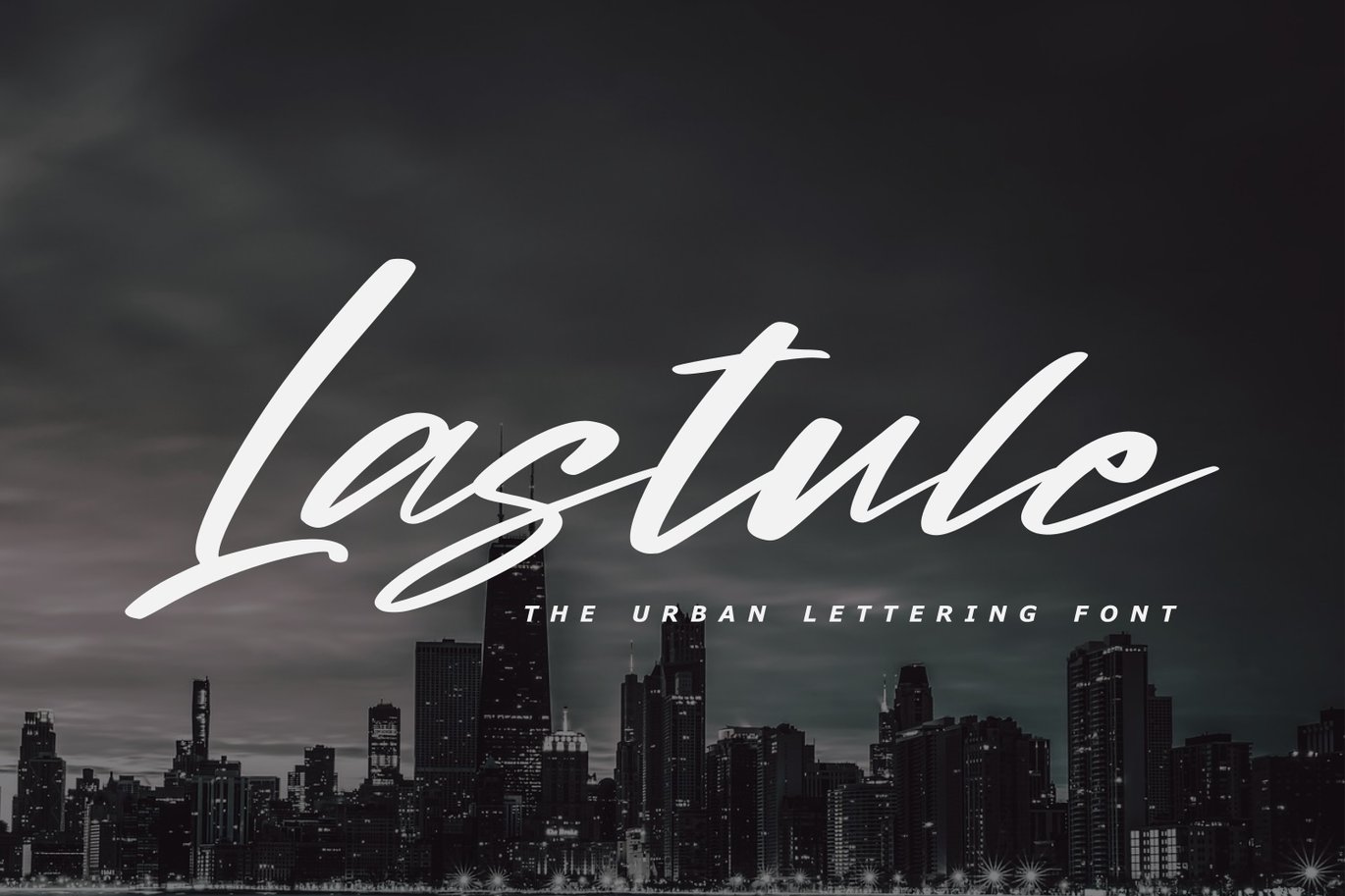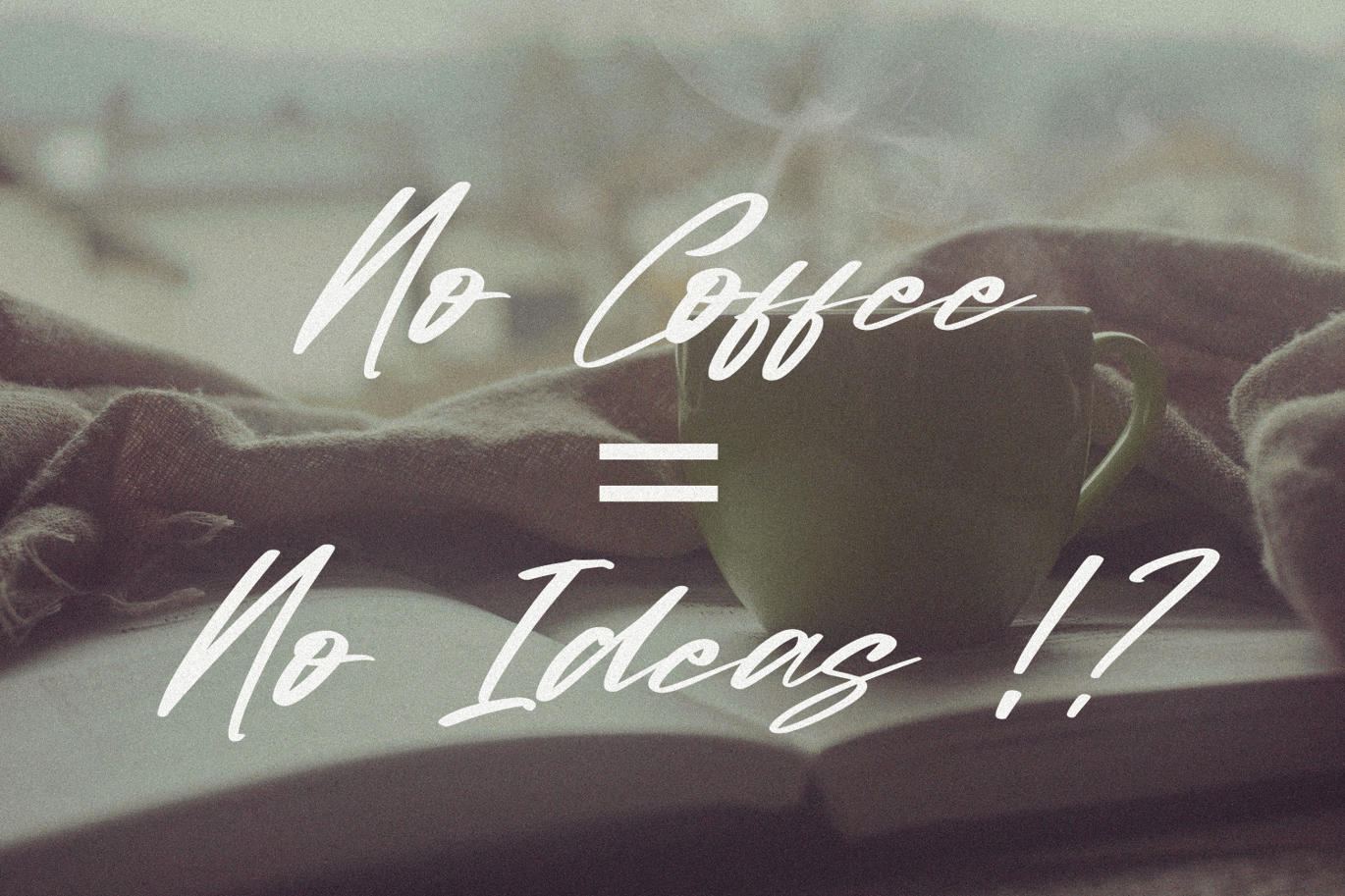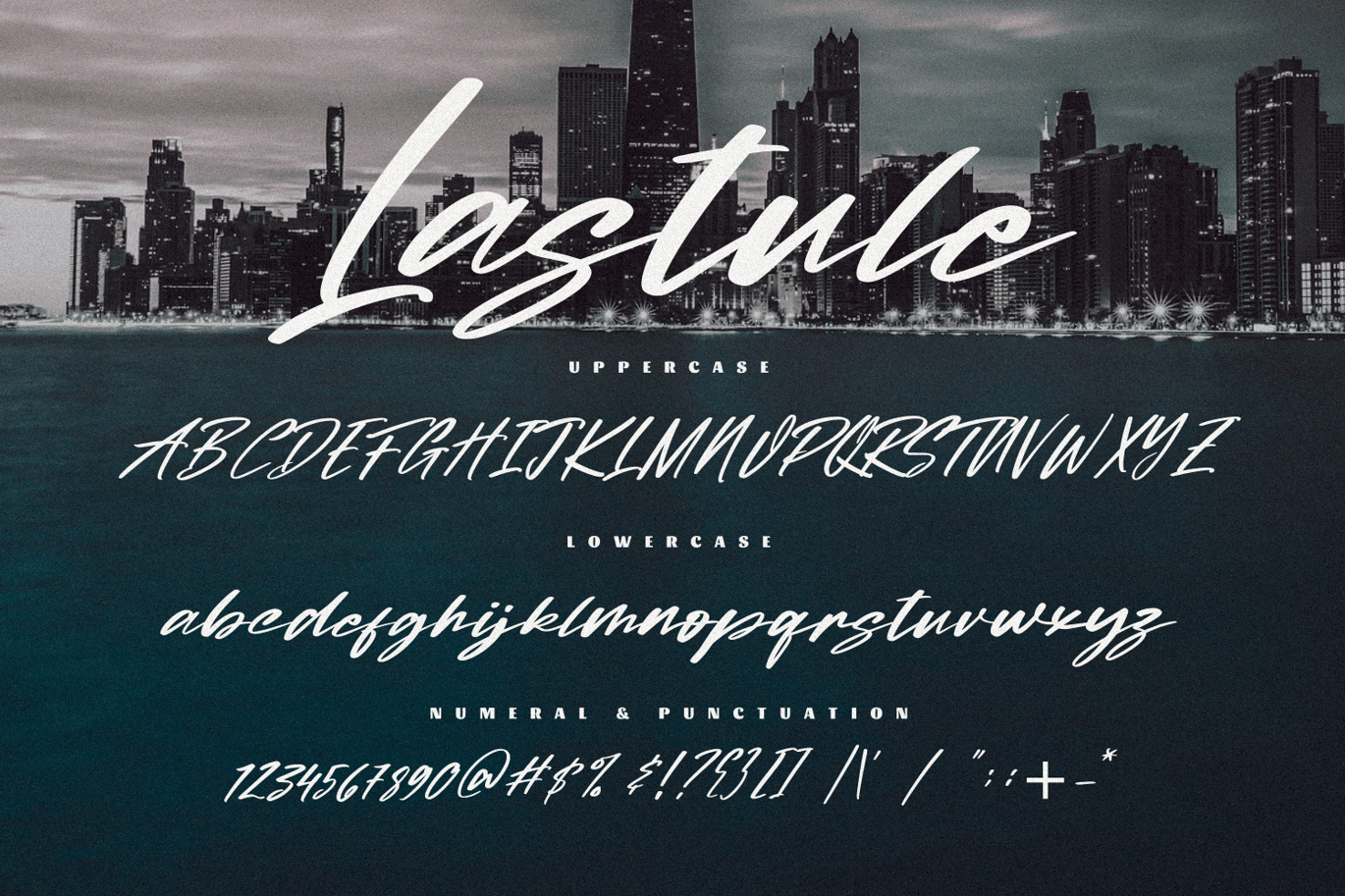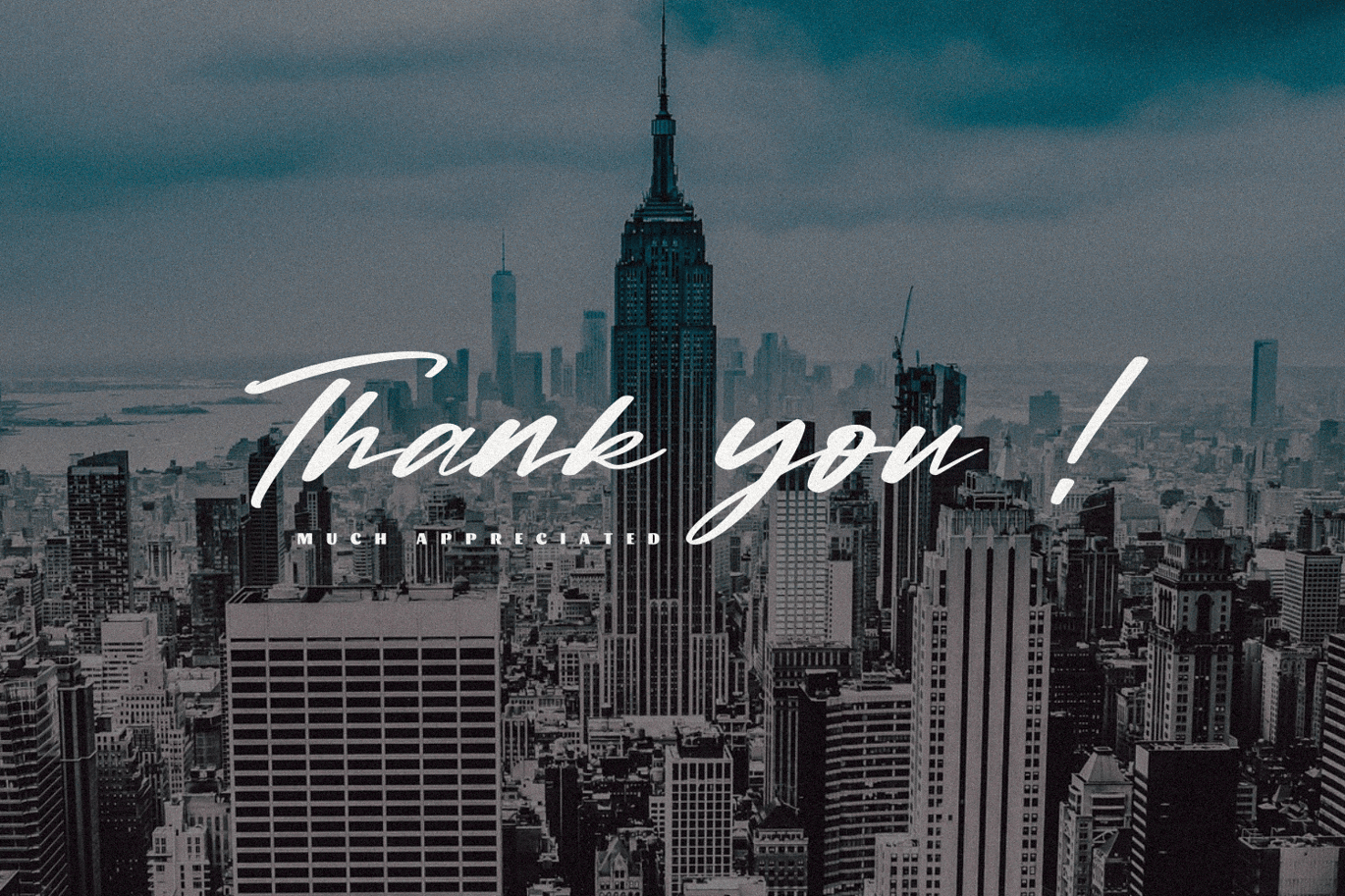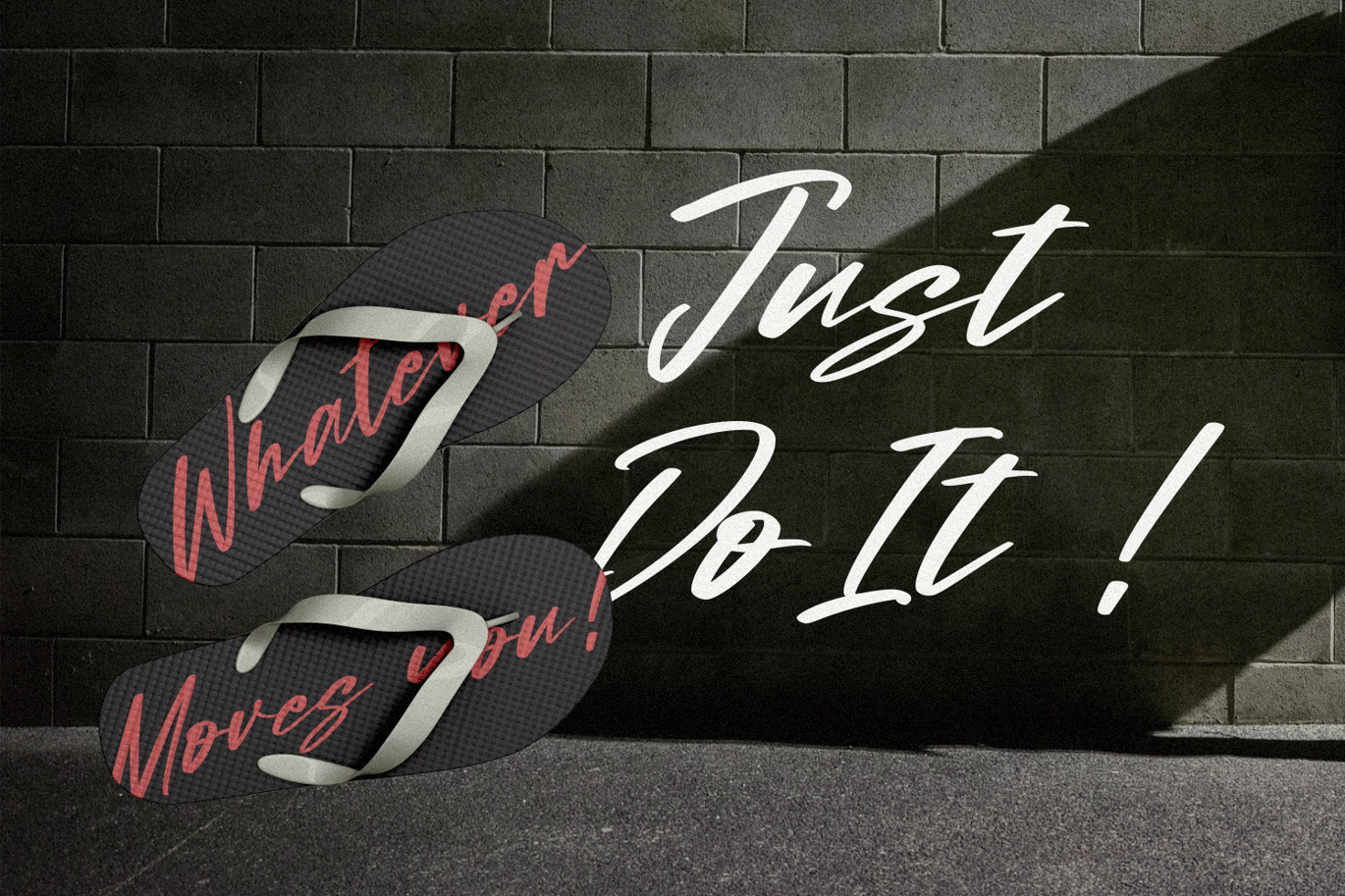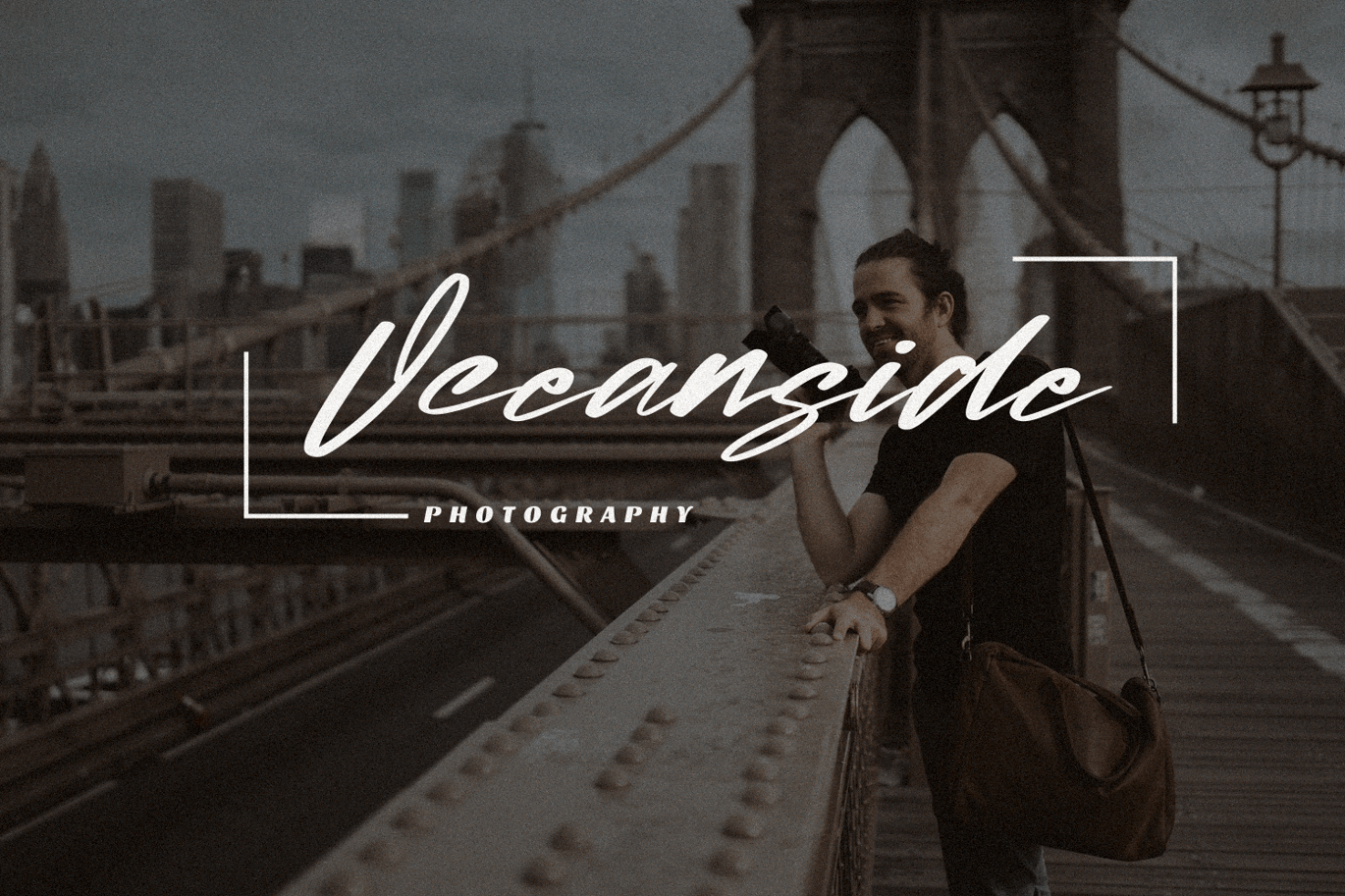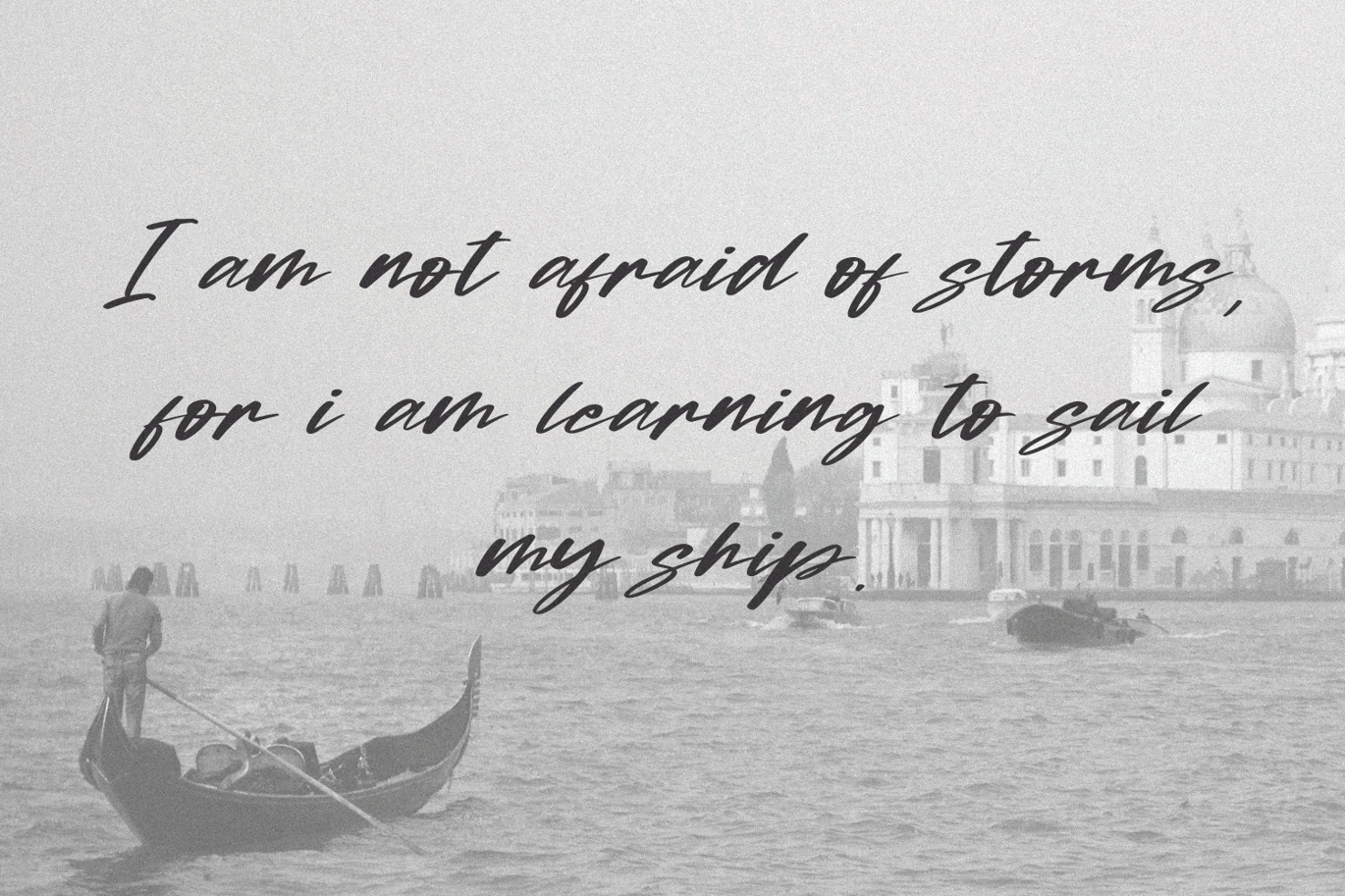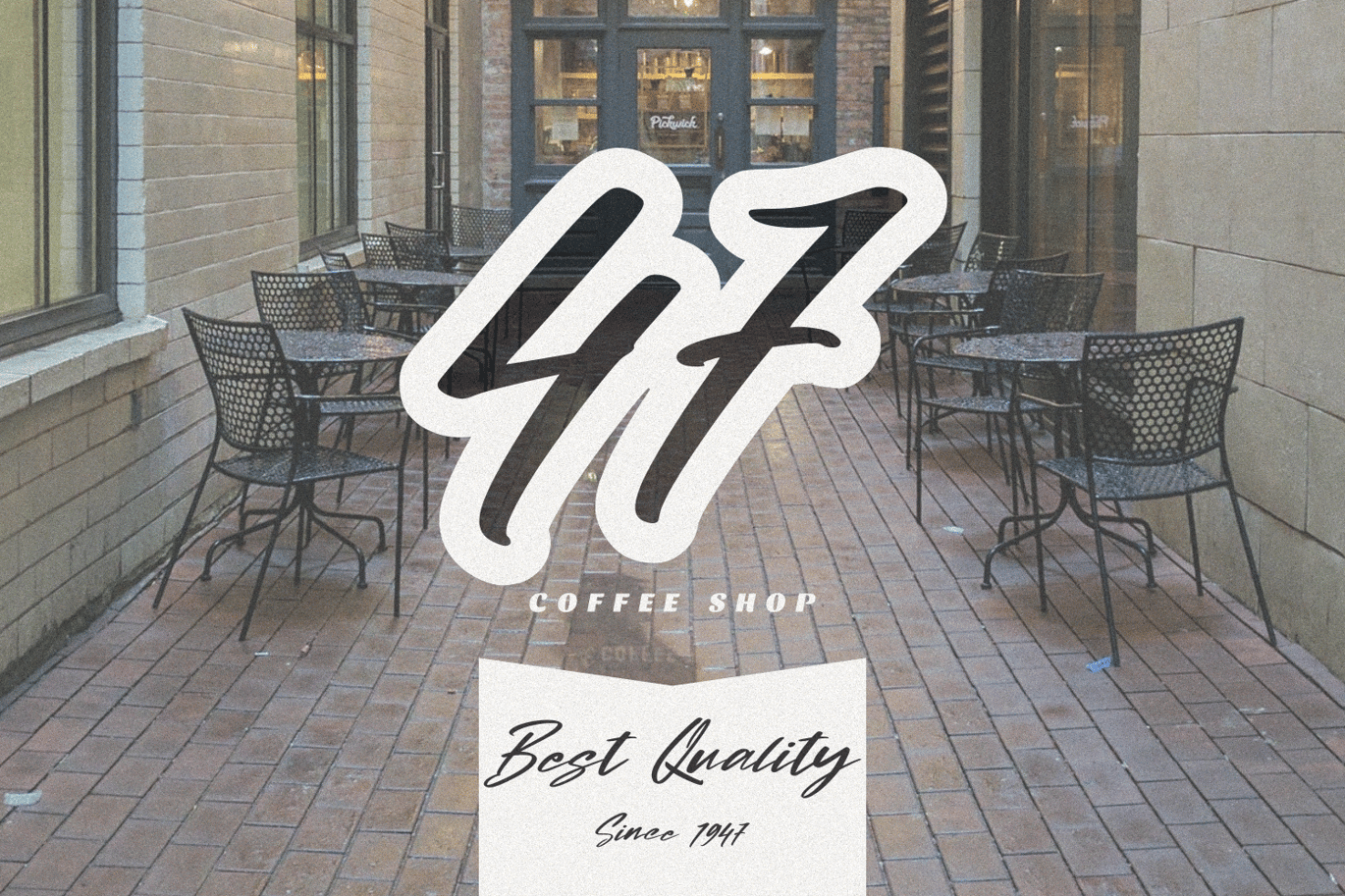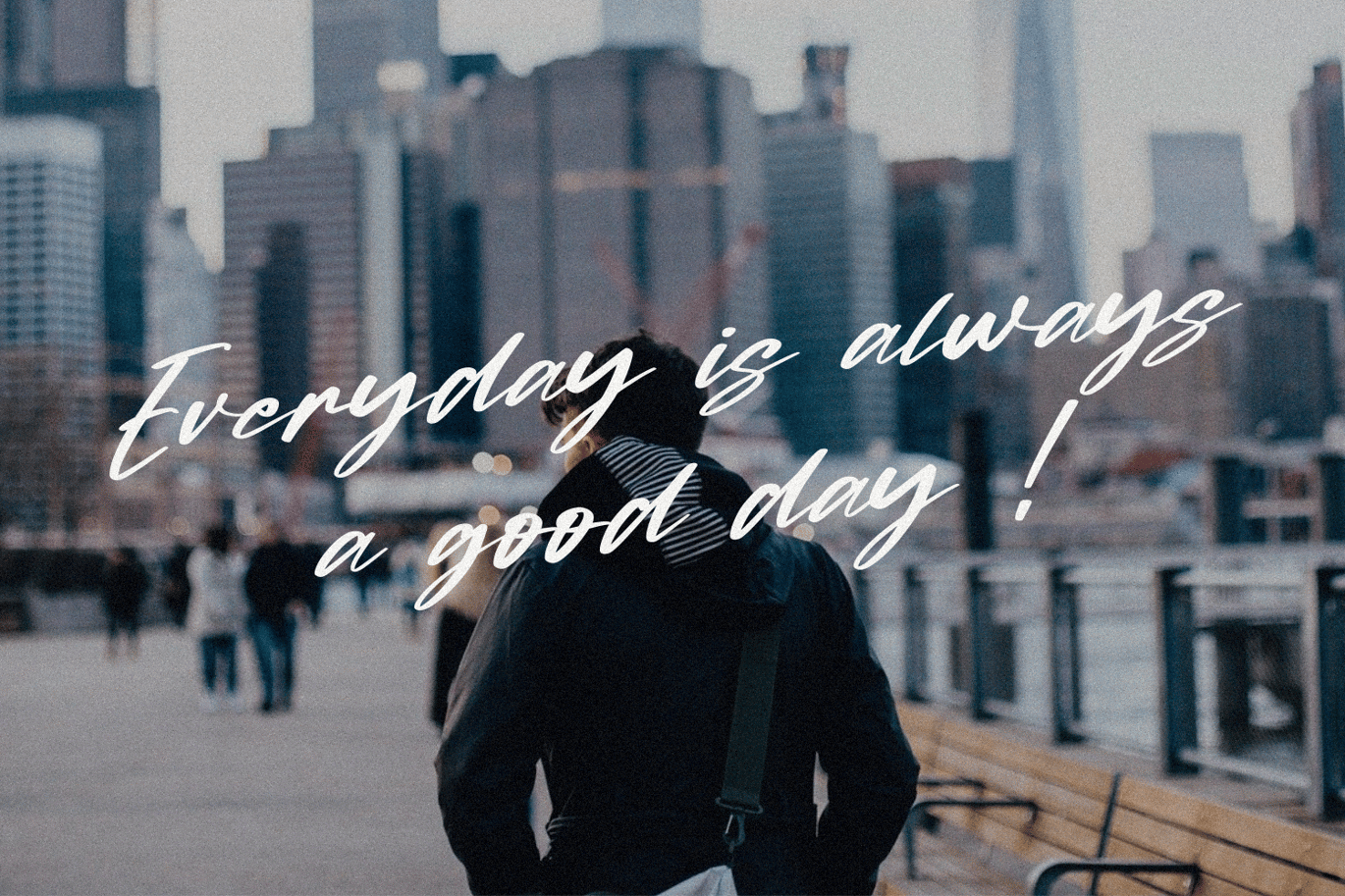
Lastule – The Urban Lettering Font
Lastule – The Urban Lettering Font, every single letter has been carefully crafted to make your text looks beautiful. it’s perfect for logos, name cards, magazine layouts, invitations, headers, or even large-scale artwork.
- Lastule font including upper & lowercase characters, numerals and more of symbols.
- Support International Character